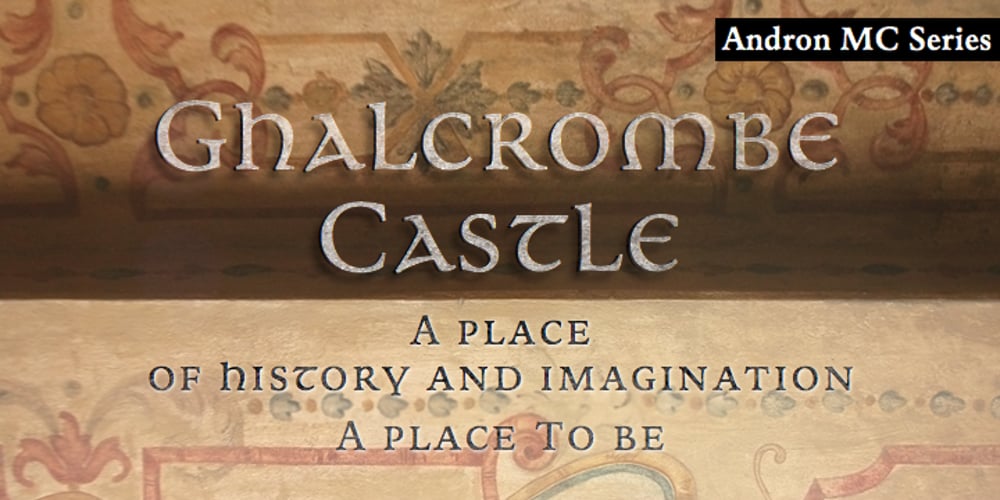
Andron MC
Andron MC font
Andron MC Font Family was designed by Andreas Stötzner and published by SIAS. Andron MC contains 3 styles and family package options. The font series Andron MC introduces a new feature to the repertoire of the Andron family: middlecase glyphs (intermediate between upper- and lowercase) – and uncial letters. Middlecase glyphs reach a medium height compared to full caps height and lowercase x-height. However, ‘uncial’ means the historic transitional lettershapes of the medieval ages which have gained no status in the bicameral typographic system of modern times. In all three of the Andron MC fonts middlecase (“MC”) glyphs dwell on the lowercase positions. These are coined in uncial fashion in the MC Uncial and MC Medieval fonts but appear as capital glyphs in MC Capital. The same variation occurs with the uppercase positions: whereas standard Roman/capital glyphs are there in MC Uncial and MC Capital, MC Medieval features uncial majuscules here instead. At the end that makes three different combinations of uncial and capital sorts. These fonts can be used for a great variety of purposes. The uncial sets are particularly well-suited for any typographic matter related to the middle ages. MC Capital is a worthwhile alternative choice when titling is to be possibly set in CAPITALS or Small caps. Andron MC adds a fascinating new aspect to the classical Andron fonts family. It enhances again the unique scope of typographical possibilities Andron is praised for since quite some time now. All three Andron MC fonts support full Latin, Greek (monotonic), Coptic and Gothic character ranges. Each font contains about 1000 glyphs.